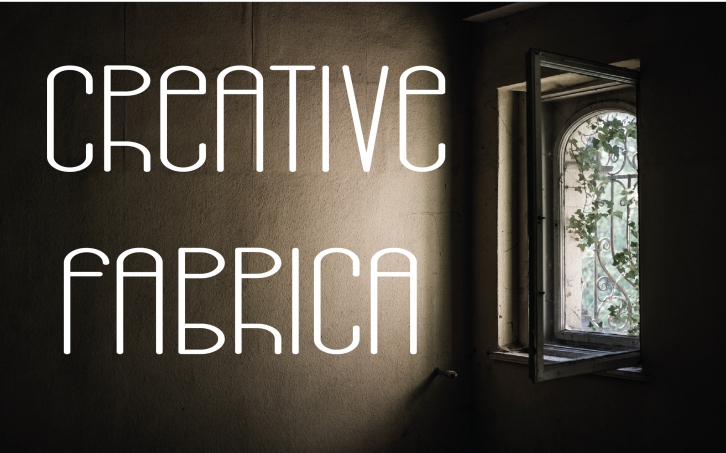
Ramka is a charming display typeface featuring forms and a playful mix of geometric construction and cute letters. It is an ideal option for outstanding logos, posters, and creative typography compositions.